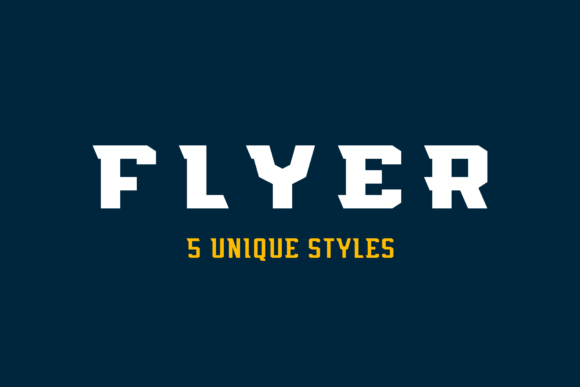
Unlock the Power of Flyer Font: Elevate Your Designs with Confidence
As a designer, have you ever found yourself staring at a blank canvas, searching for the perfect font to bring your vision to life? You know the feeling – it’s like trying to find a missing puzzle piece. But what if I told you that there’s a font out there that’s specifically designed to help you make a statement?
Enter Flyer Font, a sturdy and proud display font that’s been created to fill a void in the sports font arena. This active and dynamic typeface is perfect for any application that’s begging for a unique and confident look. Whether you’re designing a sports logo, a promotional poster, or a website, Flyer Font is sure to make your designs beautiful and captivating.
Flyer Font Key Features
- Font Style: Display font with a modern, geometric feel.
- Font Size: Supports a wide range of font sizes, from 8pt to 72pt.
- Character Set: Includes a comprehensive set of characters, including Latin, Cyrillic, and Greek alphabets.
- Kerning and Ligatures: Advanced kerning and ligature system for improved text flow and readability.
Flyer Font Review
I’ve had the chance to work with the Flyer Font, and I must say it’s an interesting choice for those looking for a bold and eye-catching display font. ✨ The font does a great job of capturing attention and adding a sense of excitement to any project. It’s perfect for posters, social media graphics, or any other design that requires a big impact.
- Works well for display purposes: The font is designed to be large and bold, making it perfect for headings and titles.
- Highly customizable: Flyer Font offers a range of customization options, allowing designers to adjust the font to fit their specific needs.
- Available in a variety of styles: The font comes in multiple styles, including regular, bold, and italic, giving designers more flexibility when working with it.
However, there are some limitations to consider. ⚠️ For one, the font may not be suitable for body text, as it can be difficult to read in smaller sizes. Additionally, the font’s bold nature can make it feel overwhelming if used excessively. It’s also worth noting that some users may find the font’s style to be too flashy or attention-seeking.
Overall, the Flyer Font is a solid choice for designers looking to add a touch of excitement to their projects. While it may not be suitable for every project, it’s definitely worth considering for those looking to make a big impact.
Practical Application Guide: Flyer Font
Tips for Getting the Most Out of Flyer Font
Use Flyer Font for eye-catching headings and titles.
Experiment with different font sizes and colors to create visual hierarchy.
Combine Flyer Font with other fonts to create a unique and stylish design.
Flyer Font is ideal for promotional materials, such as flyers, brochures, and posters.
Use it for social media graphics, event invitations, and product packaging.
Flyer Font is also great for creating attention-grabbing headings and titles in presentations and documents.
Montserrat is a sans-serif font designed for urban environments. It’s highly legible and suitable for body text, signage, and other large-scale applications. Compared to Flyer Font, Montserrat has a more modern and condensed feel, making it ideal for digital and urban design projects.
GT America
GT America is a sans-serif font designed for the American market. It’s highly legible and suitable for body text, signage, and other large-scale applications. GT America has a similar clean and modern feel to Flyer Font but with a more rounded and friendly appearance.